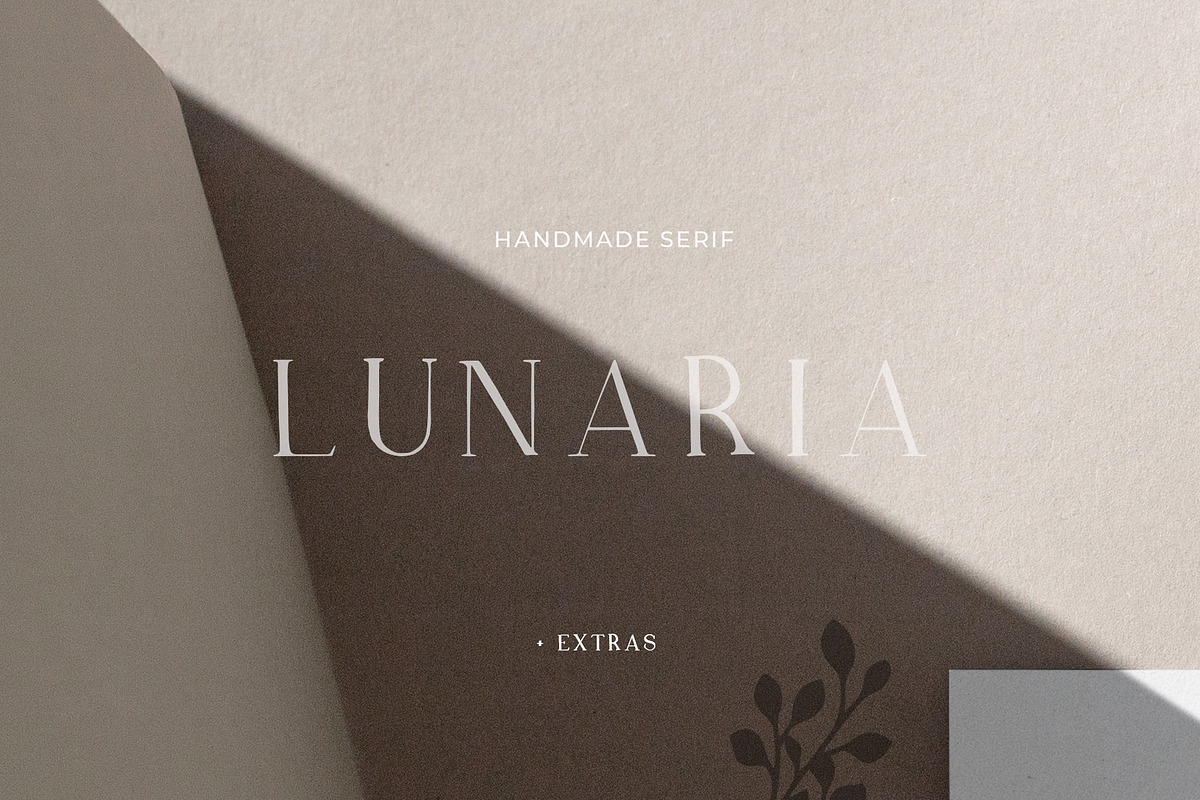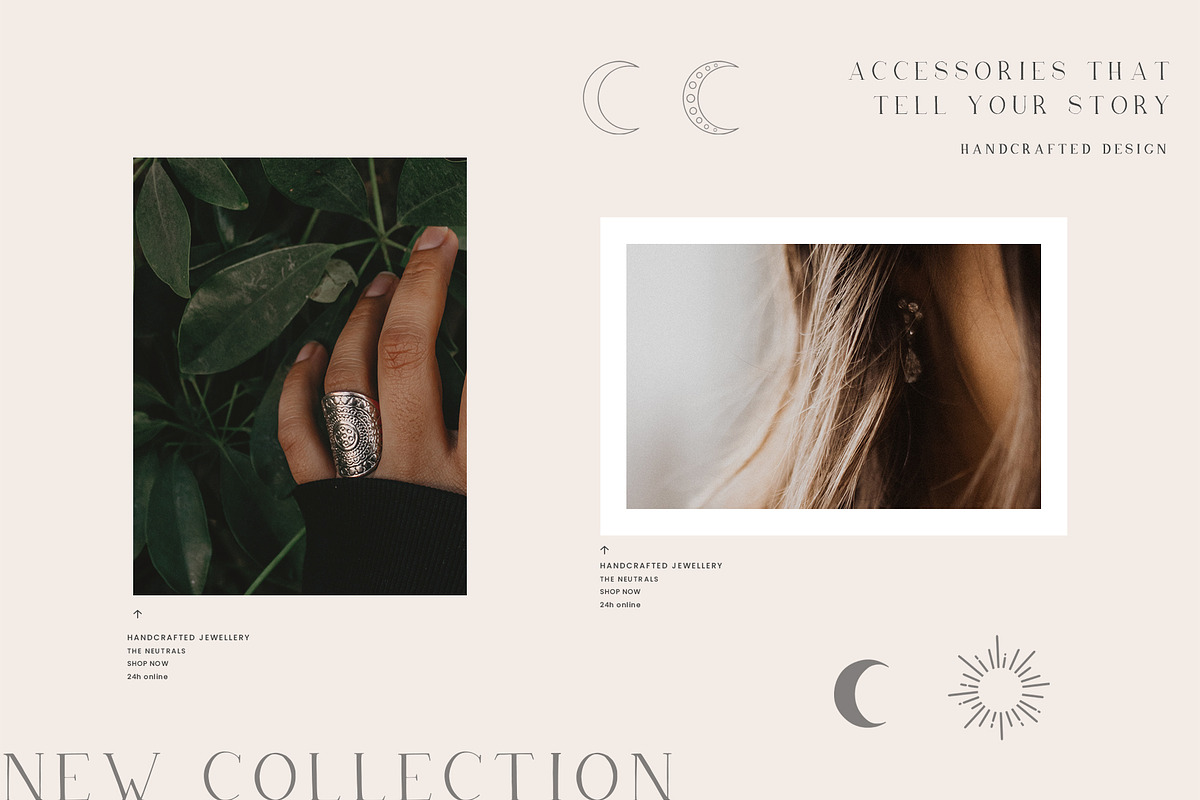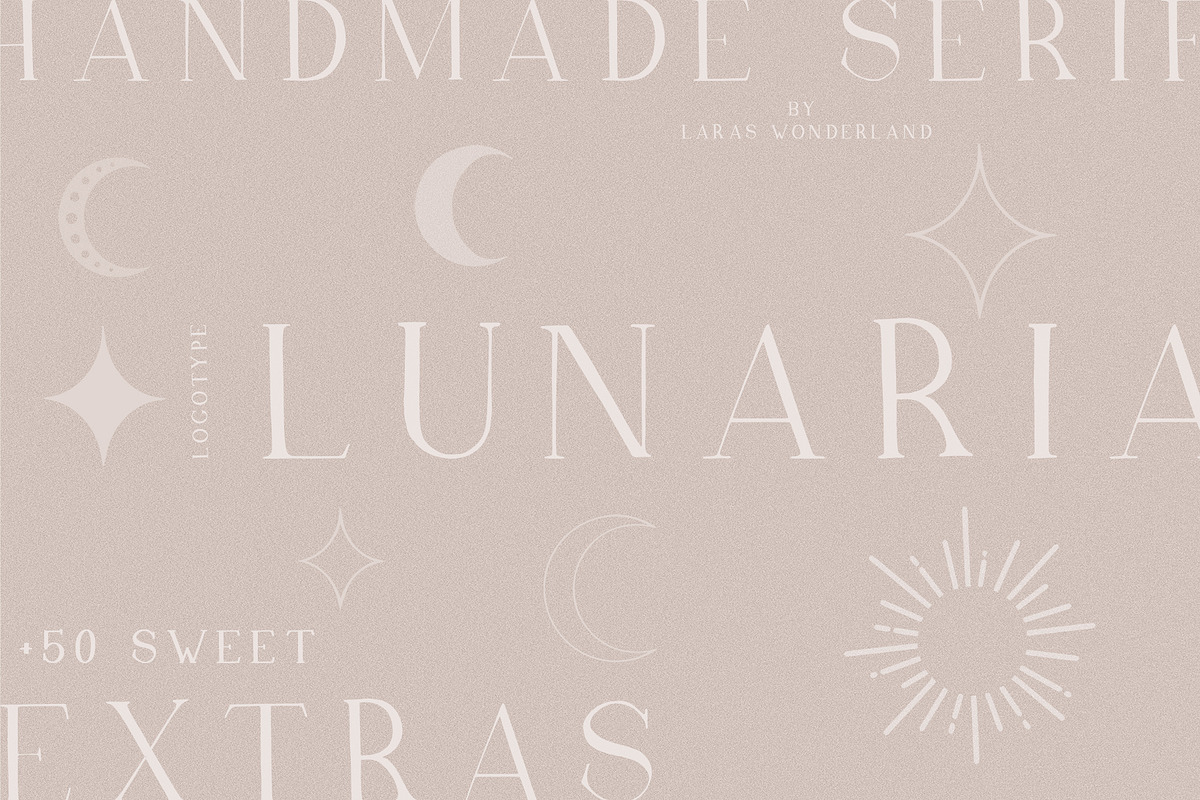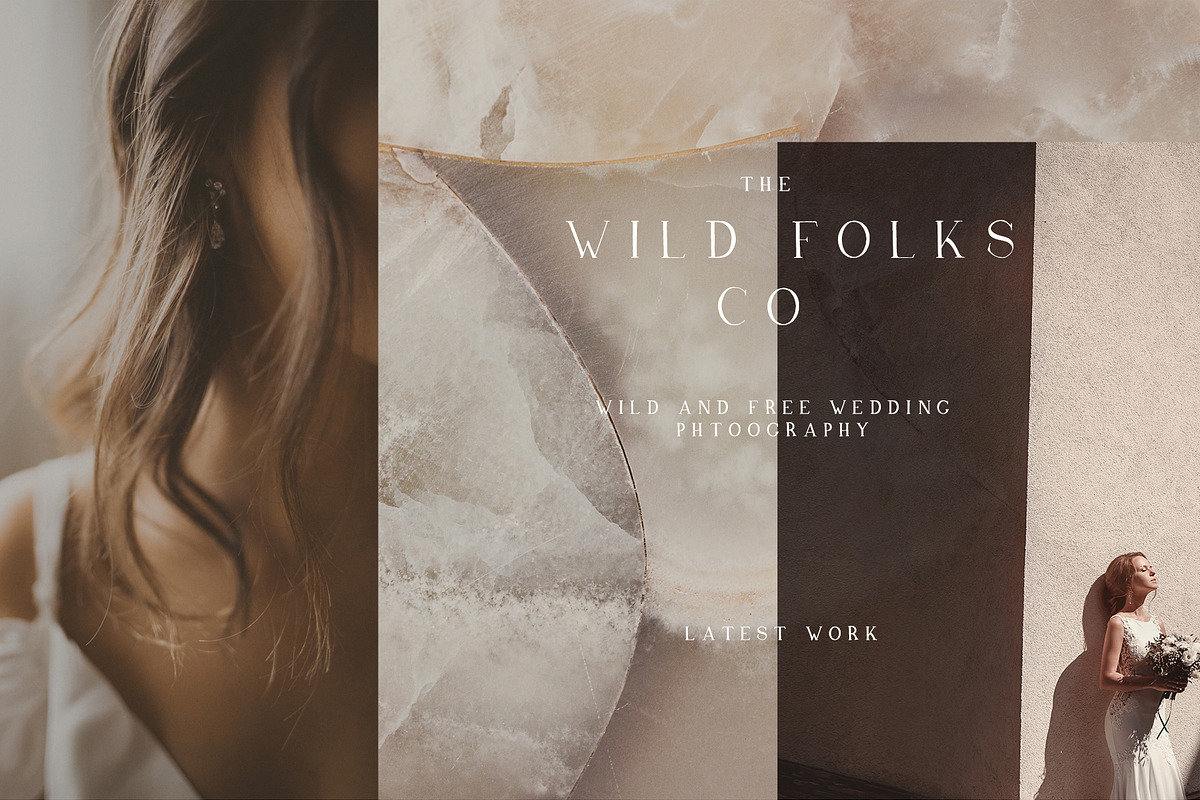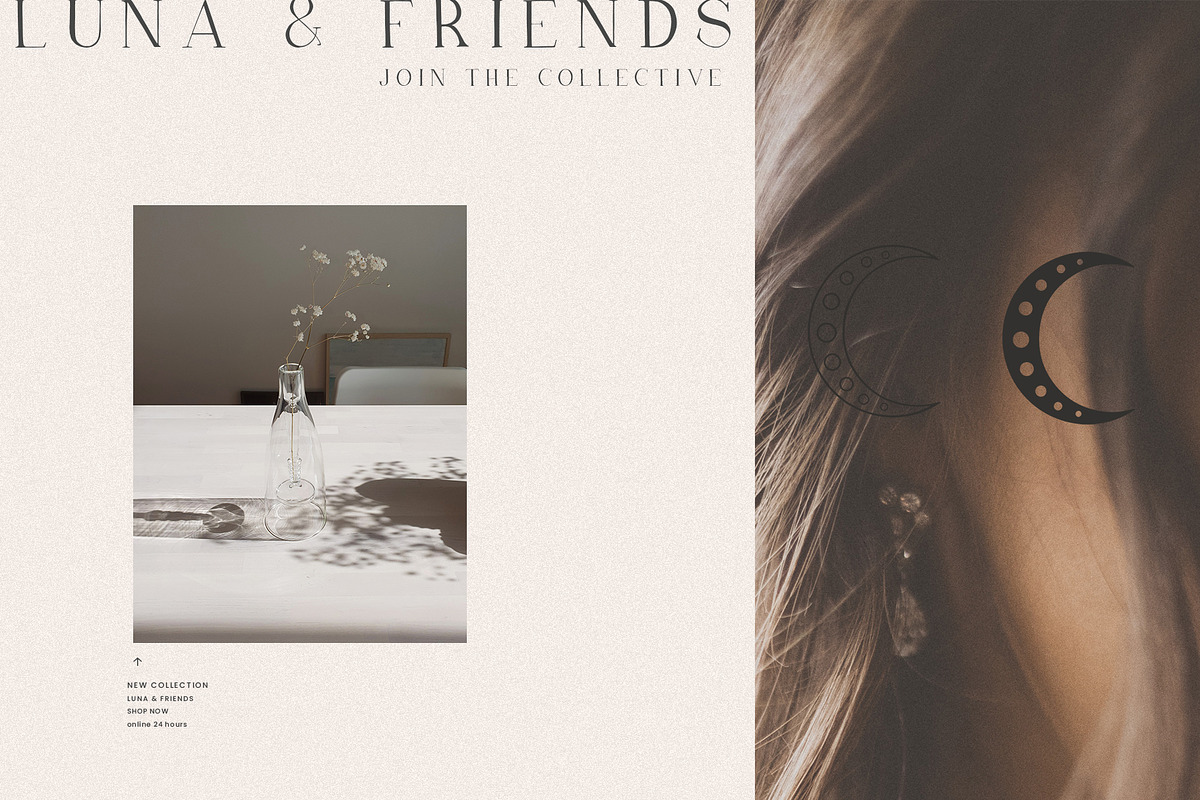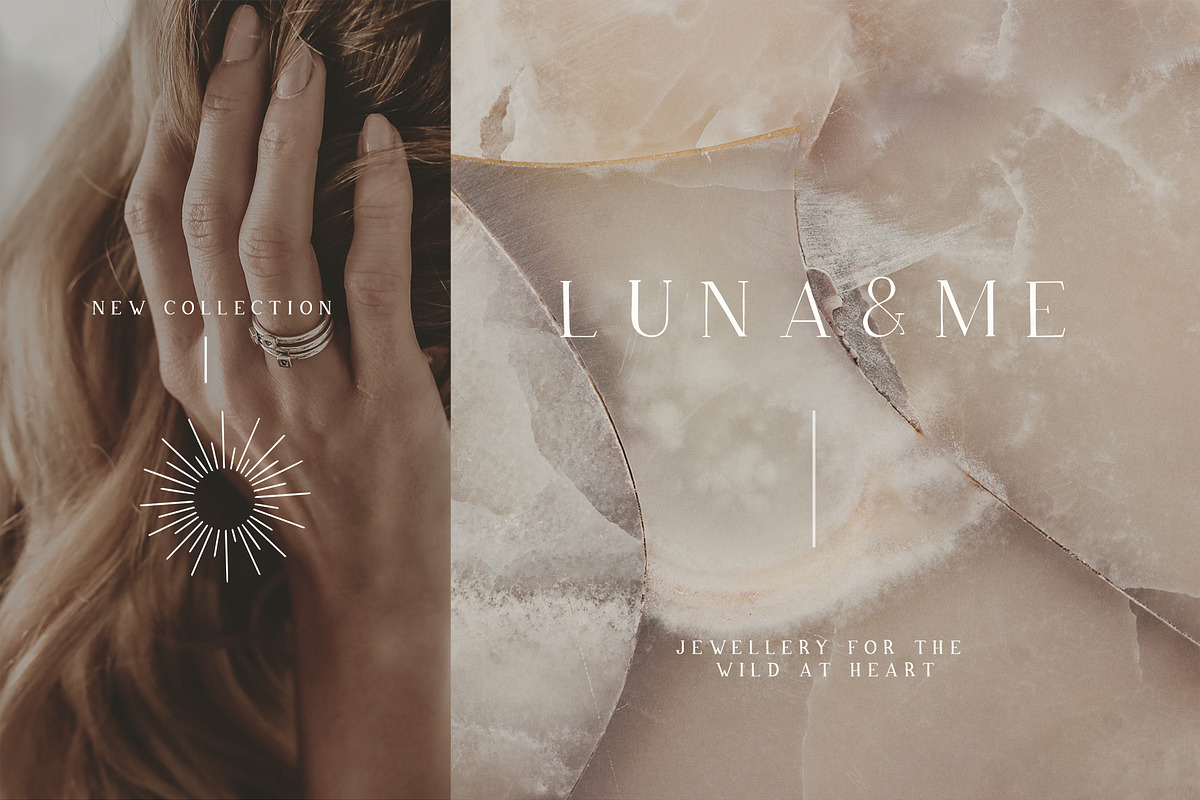
Lunaria - Handmade Serif Font
A classic serif with a rustic finish, entirely crafted by hand - that's how "Lunaria" comes along, bringing handmade elegance to your logo design, branding, wedding invitation and design project.
Lunaria always looks freshly custom-made and was created to look like those individual logotypes that you can see everywhere. Add that touch to your artwork as well, simply by using this rustic little font!
Lunaria doesn't come on it's own, but brought a lot of sweet little icons, illustrations and graphics. You'll discover a variety of lunar and boho sun and moon icons, alchemist and spiritual symbols, hand illustration, floral sketches and botanical illustrations inside of this package.